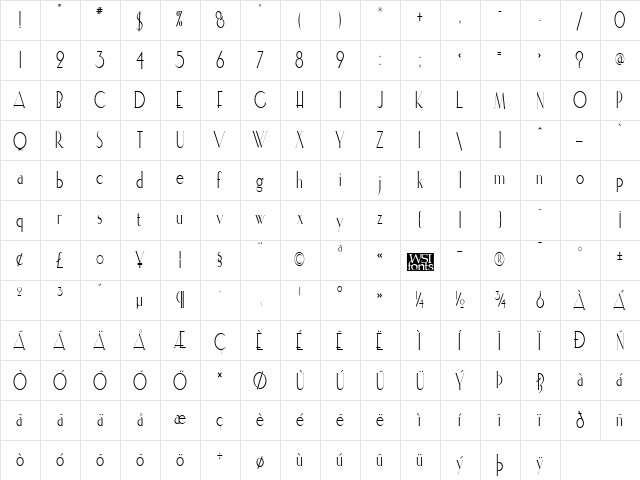
ElisiaCondensed Regular
Design Context for ElisiaCondensed Typeface
ElisiaCondensed takes a measured approach to typography — its balanced proportions and neutral character make it a reliable workhorse for both digital and print work. Its narrow stance lets it pack a punch even in space-constrained designs.